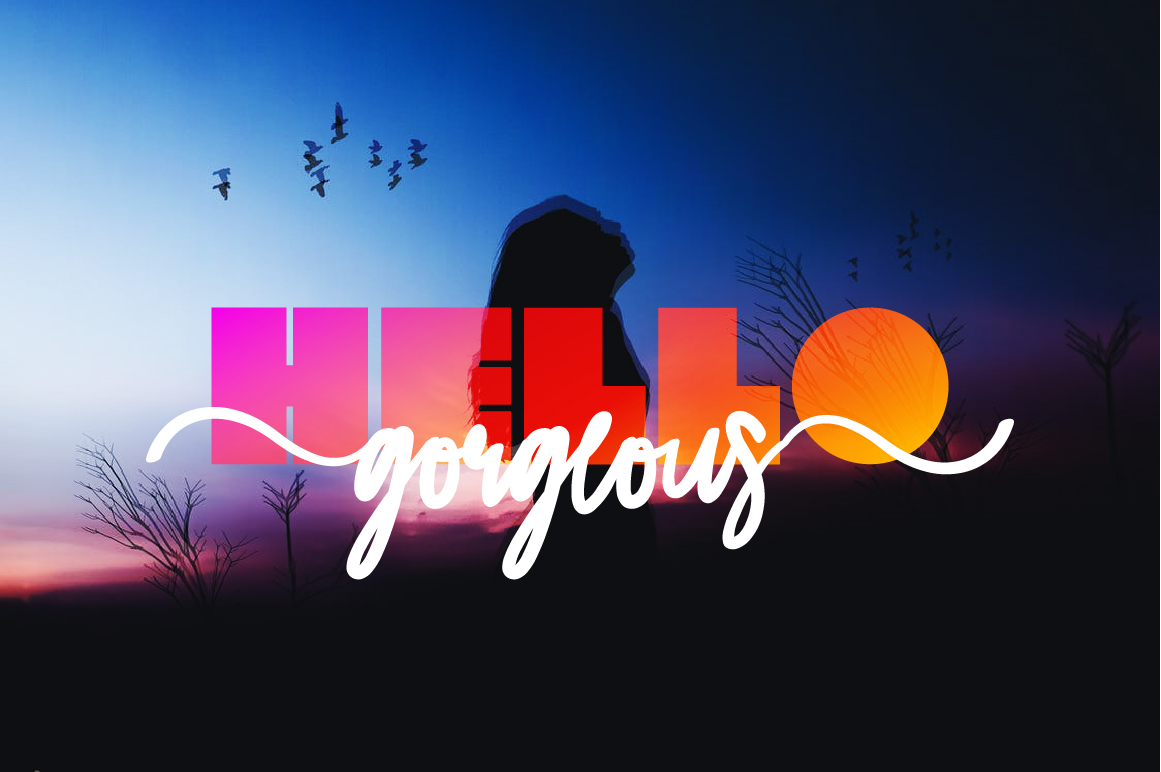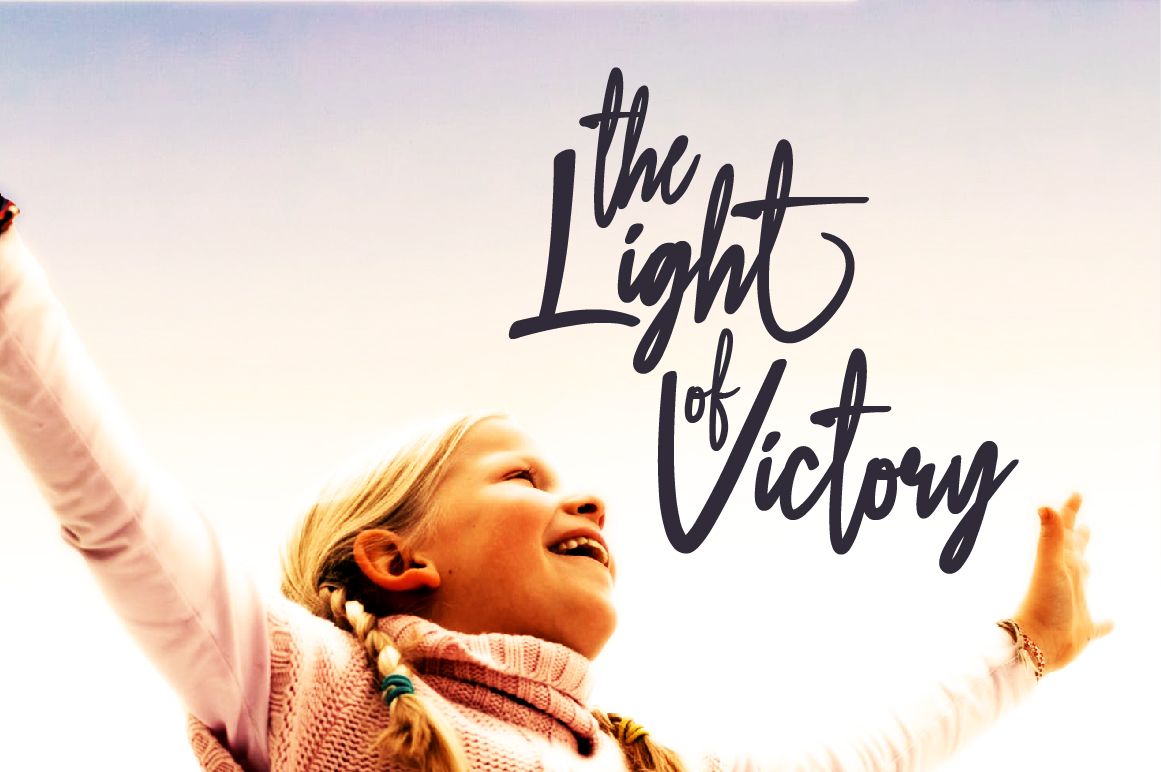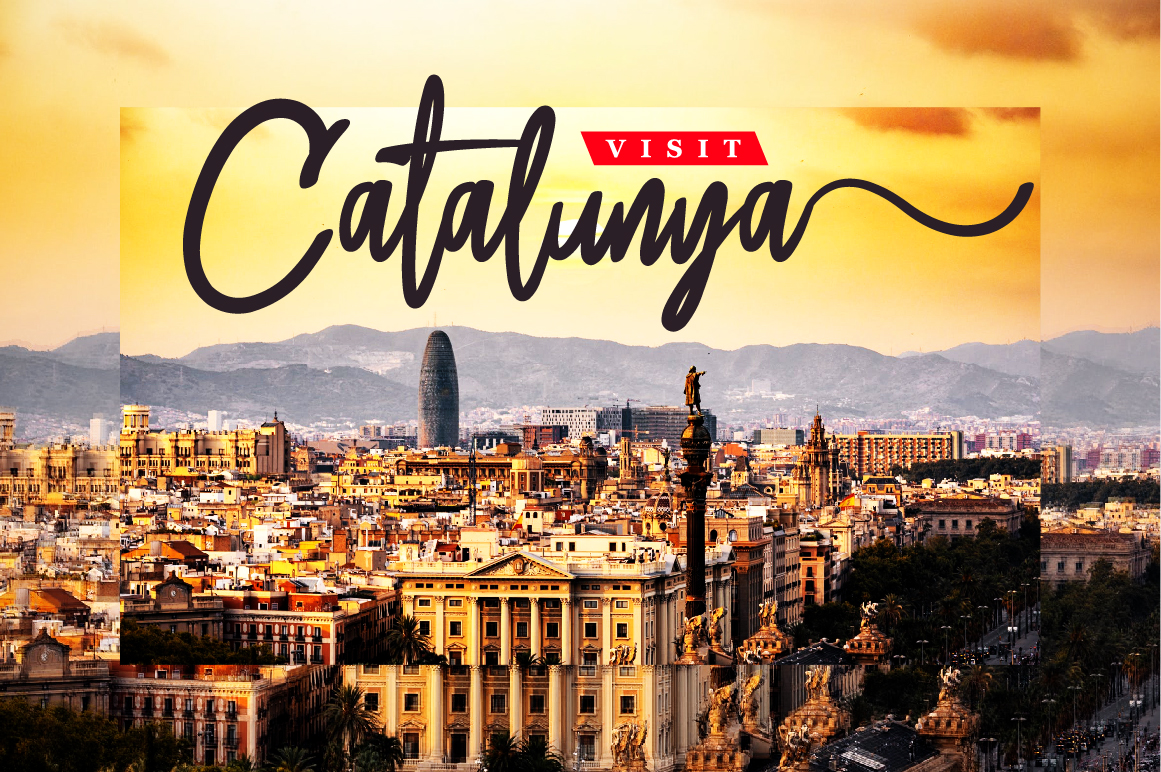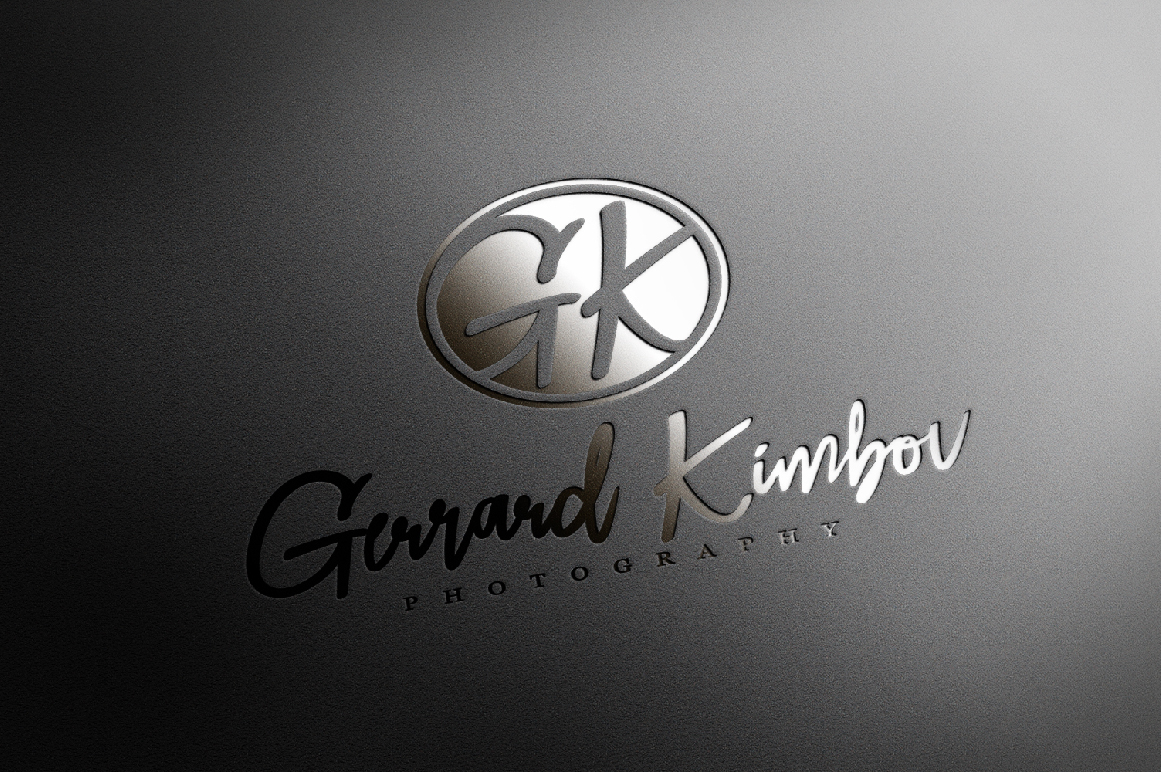
Sweatty Free Font
Sweatty Free Font can be applied to any design, such as logo design, branding, poster, wallpaper, wedding, invitation, quote, and various other design needs. very suitable for designing your own brand and for other branding designs, this font looks perfect on all printing techniques, foil embossing, embroidery, and more. This free typeface was designed by a talented Studio AKTYPE. If you like it don’t forget to check out the full version.